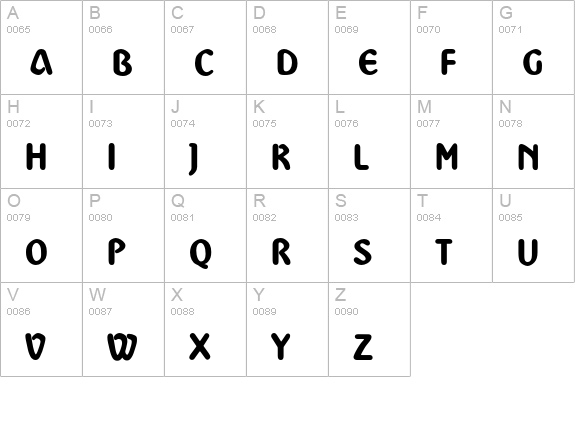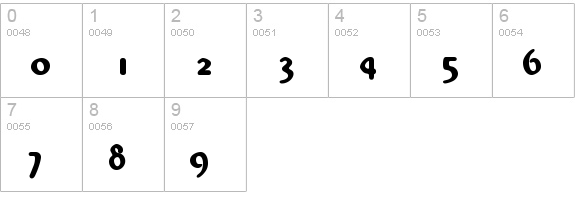
Abbey-Medium Font Details
Abbey-Medium is a balanced, medium-weight variant in the Abbey typeface family \xE2\x80\x94 well suited to sub-headlines, navigation, and balanced editorial work.